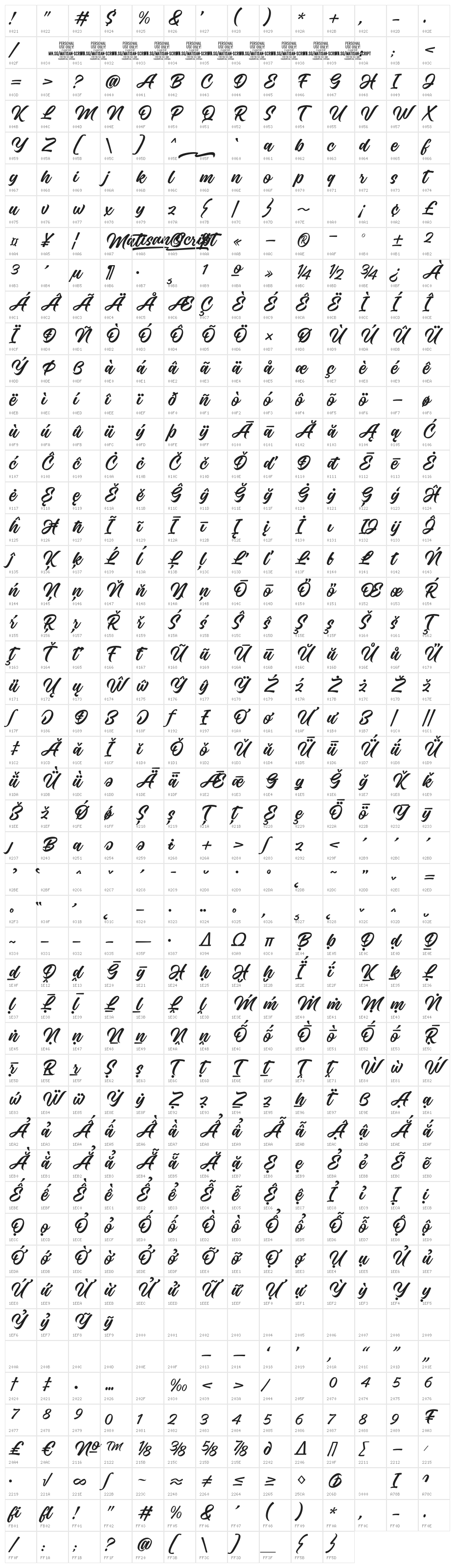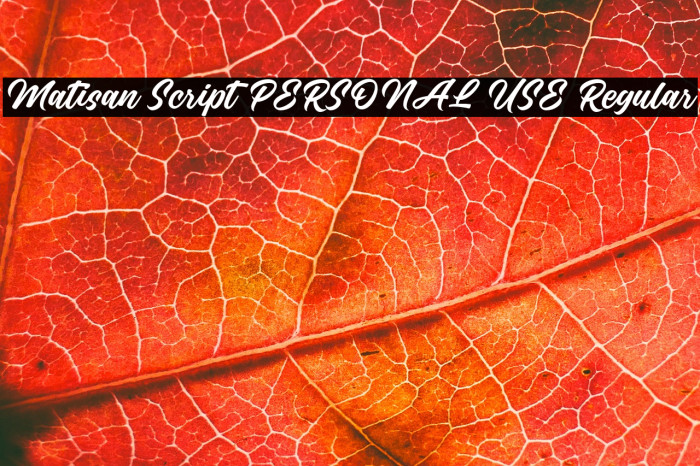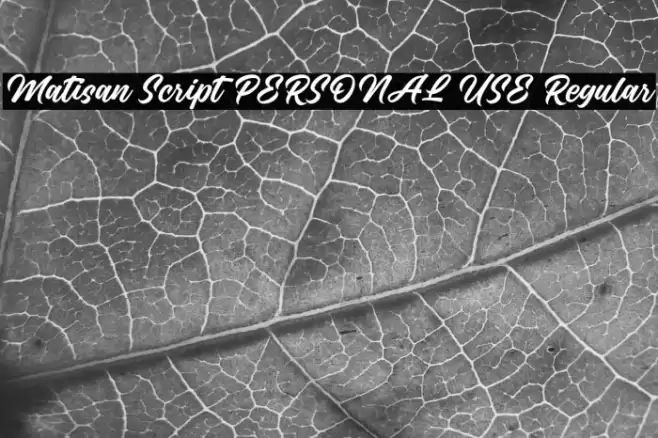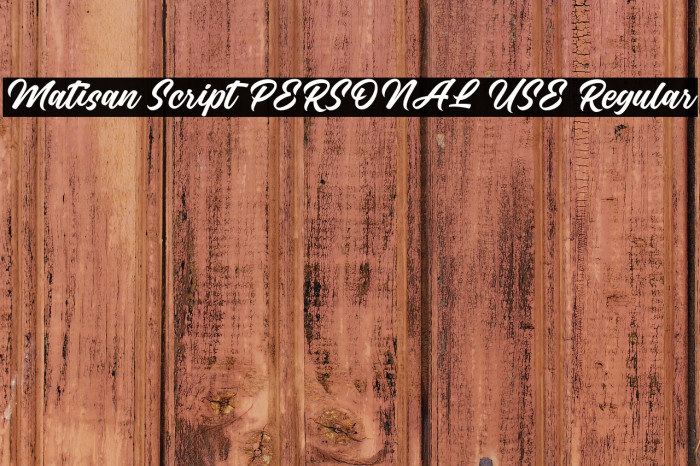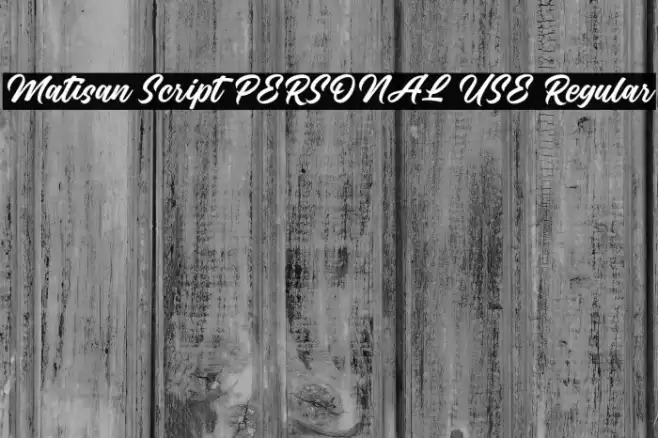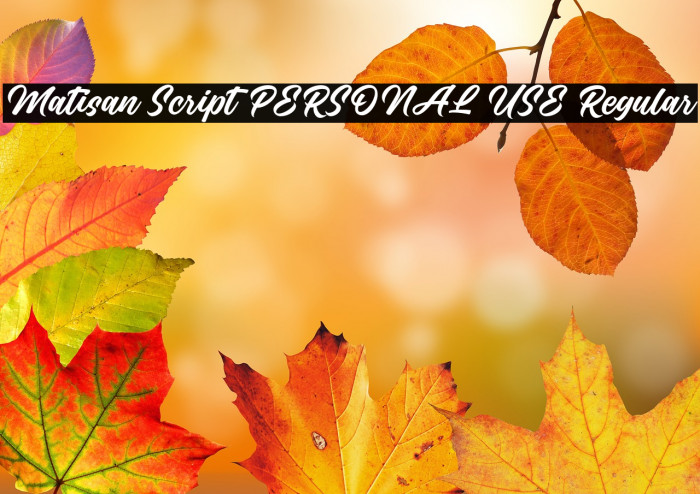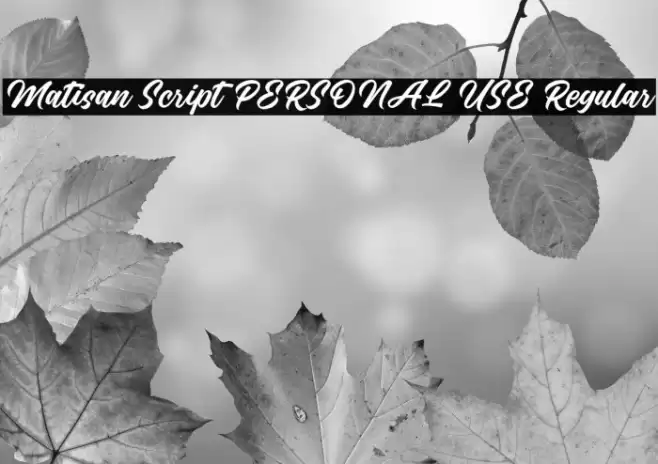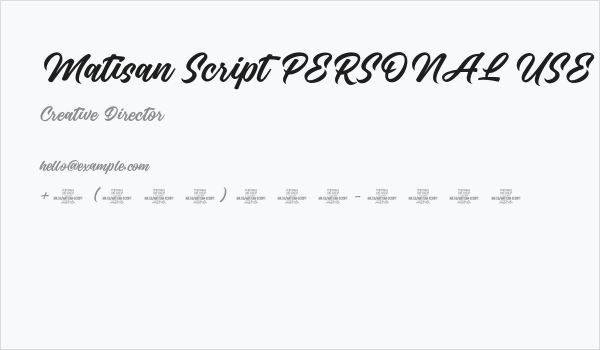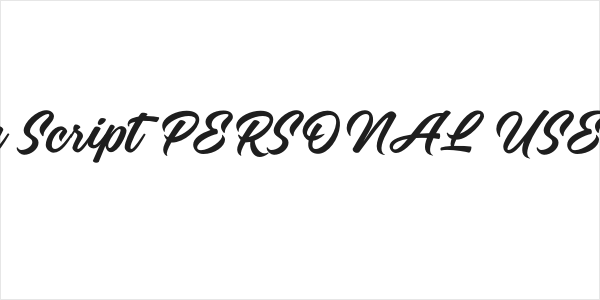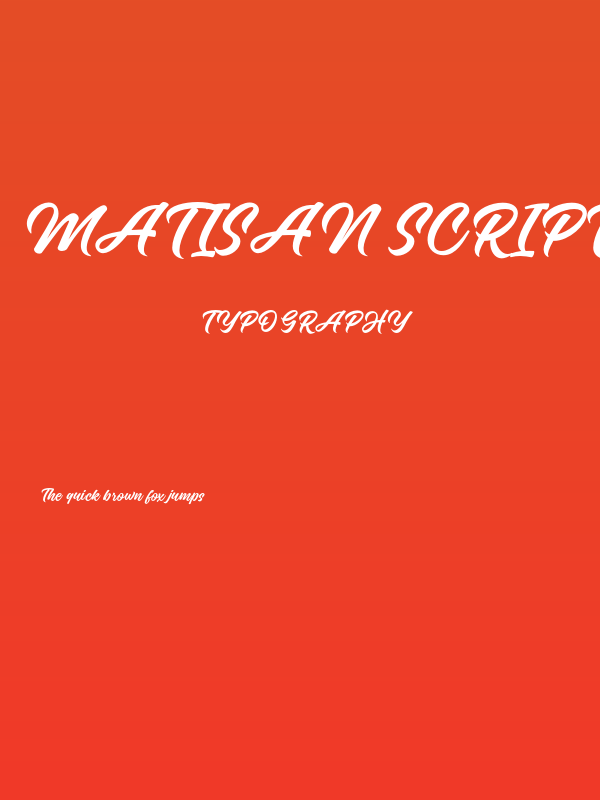
Matisan Script PERSONAL USE Regular Font
Matisan Script PERSONAL USE Regular Description
This font is a bold, flowing script that exudes elegance and sophistication. The characters are connected with smooth, sweeping strokes, giving it a handwritten appearance. The uppercase letters are slightly larger and more ornate, while the lowercase letters maintain a consistent flow. The font includes a full set of uppercase and lowercase letters, numbers, and a variety of special characters. Its design is both stylish and readable, making it suitable for a range of creative projects. The overall look is dynamic and expressive, perfect for making a statement.
Overall StyleElegant, Decorative
Use CaseLogos, Invitations, Branding
Proposed ProjectsIdeal for wedding invitations, branding, logos, and elegant packaging designs.